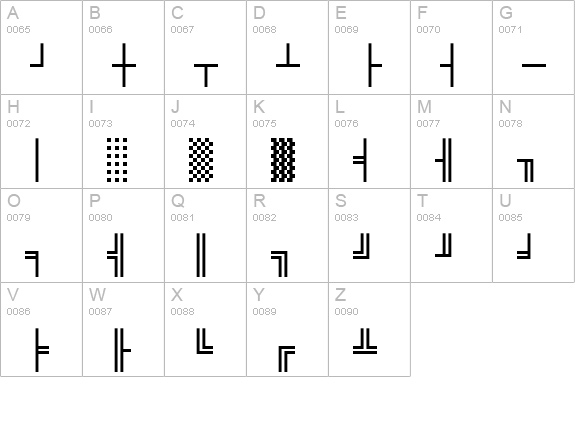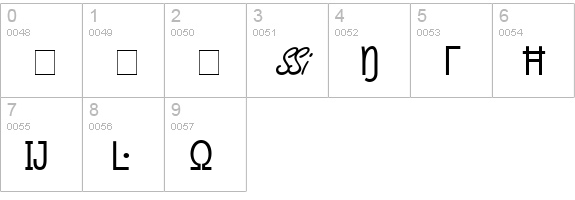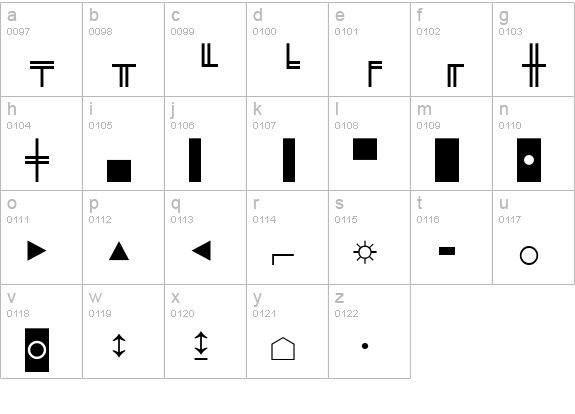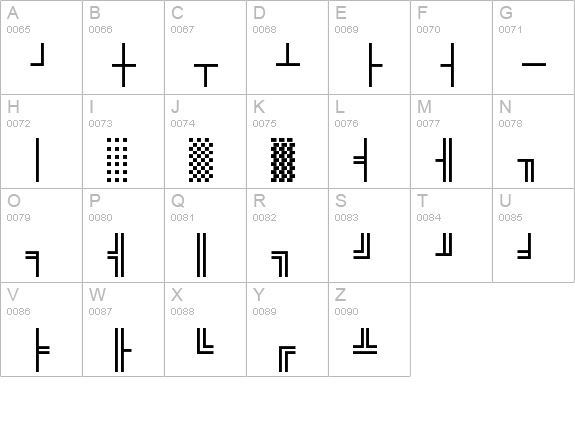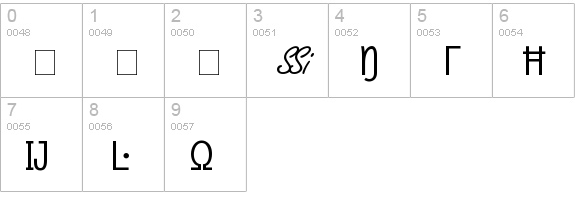
Micro Pi Two SSi Normal is the standard, neutral variant in the Micro typeface family \xE2\x80\x94 well suited to general body text, paragraphs, and standard typographic work.
Micro Pi Two SSi Normal font is a sleek and modern typeface that is perfect for various design projects. With its clean lines and sharp edges, this font exudes a sense of sophistication and professionalism. Whether you are working on a logo, website, or any other creative endeavor, Micro Pi Two SSi Normal font can add a touch of elegance to your work. The best part is that Micro Pi Two SSi Normal font is completely free to download at FontsMarket.com. You can easily access this fantastic font and use it in your projects without any cost. Don't miss out on this amazing opportunity to enhance your designs with the stylish Micro Pi Two SSi Normal font. Download it now and start creating eye-catching visuals that will impress your audience.